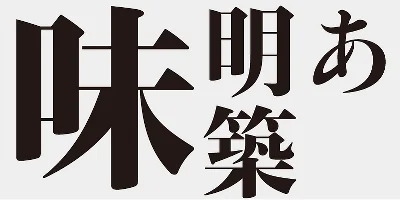
AB Ajimin Modern Chiku/EB Font
AB Ajimin Modern Chiku/EB Font is a beautifully designed extra bold serif typeface that blends traditional Japanese Mincho influences with modern typographic refinement. The Chiku/EB variation is characterized by high contrast, sharp serifs, and strong vertical strokes—ideal for editorial headlines, high-end branding, book titles, and visual storytelling that needs a mix of heritage and contemporary sophistication.
This font captures the essence of calligraphy with its elegant brush-style details, while offering the clarity and structure needed for modern layouts. Supporting both Japanese and Latin scripts, AB Ajimin Modern Chiku/EB is a perfect fit for bilingual or international design projects that require a cultured and authoritative tone.